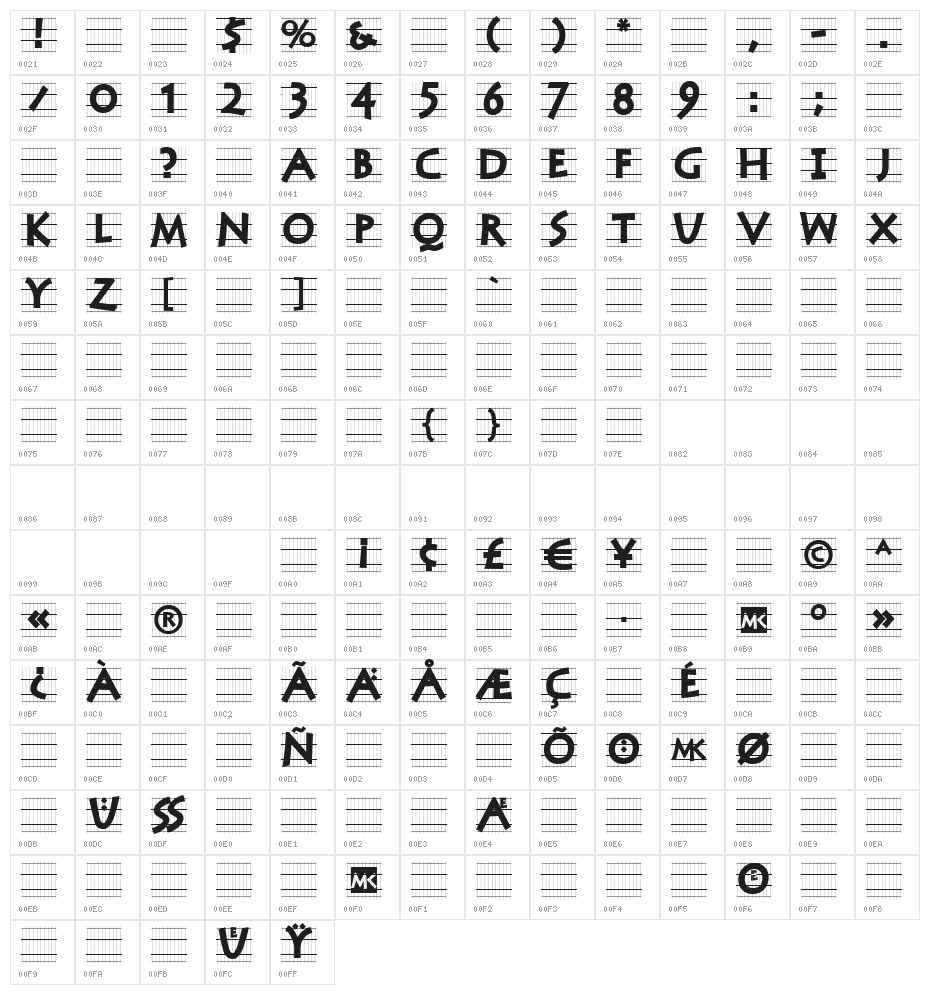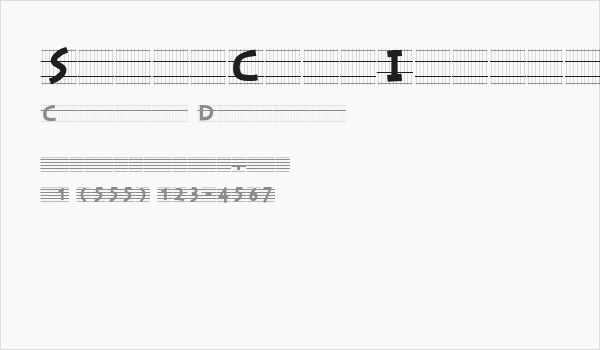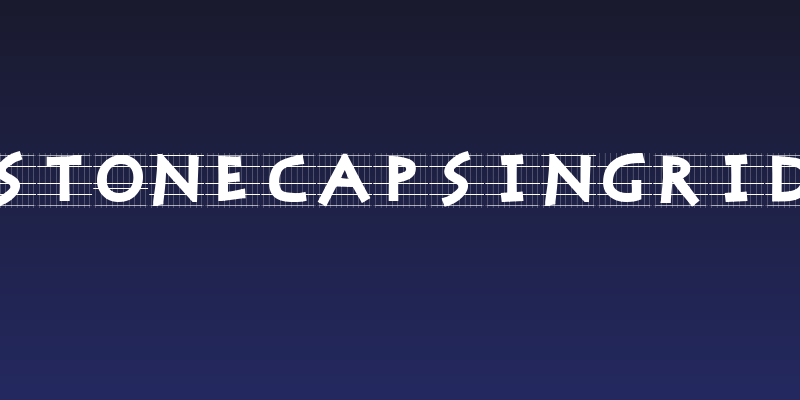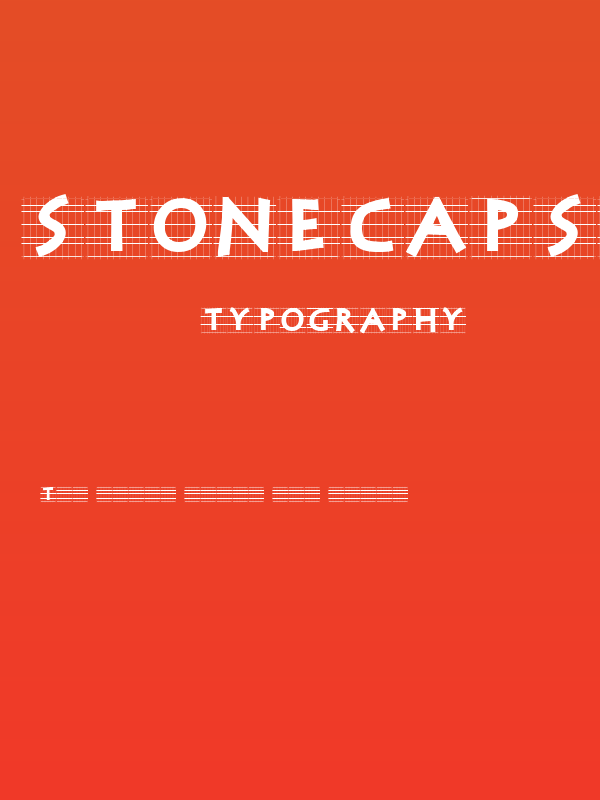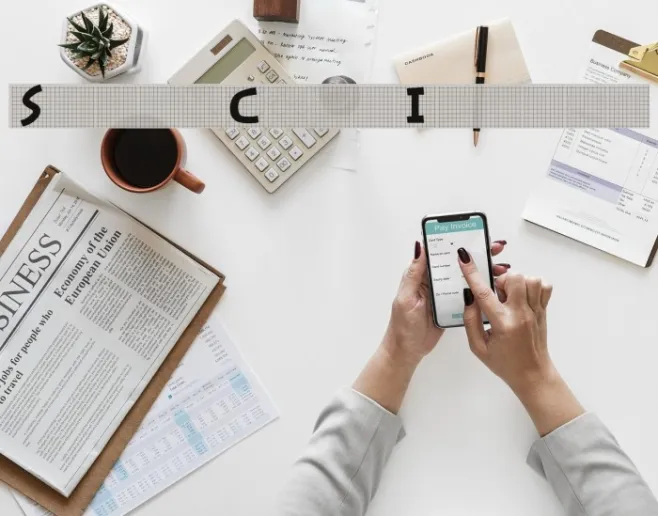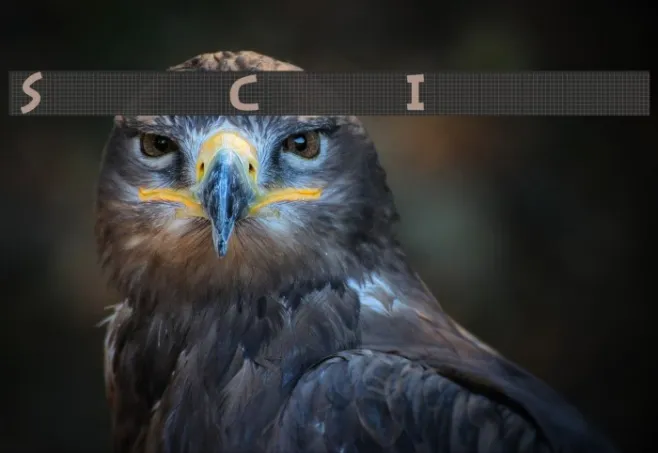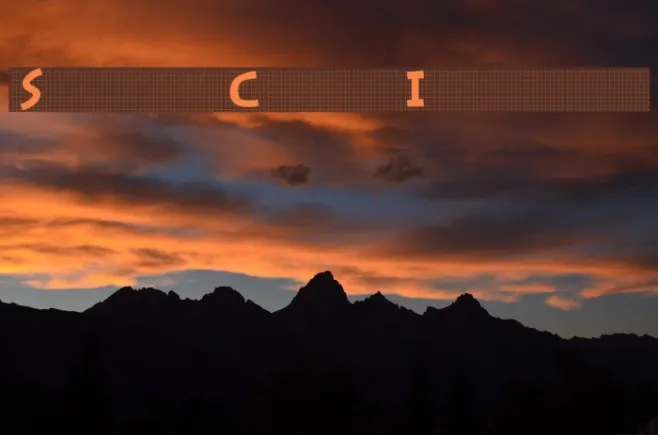
StoneCapsIngrid Font
StoneCapsIngrid Description
This font features a bold and striking design with a distinct geometric flair. The uppercase letters are crafted with sharp angles and clean lines, giving them a modern and assertive appearance. The numerals are equally bold, maintaining the geometric style with consistent stroke widths. Special characters are designed to complement the overall aesthetic, adding a touch of uniqueness to the font. The absence of lowercase letters suggests a focus on impactful headlines or titles. This font is ideal for projects that require a strong visual presence and a contemporary look.
| Proposed Projects | Ideal for branding, posters, headlines, and any design requiring a bold statement. |